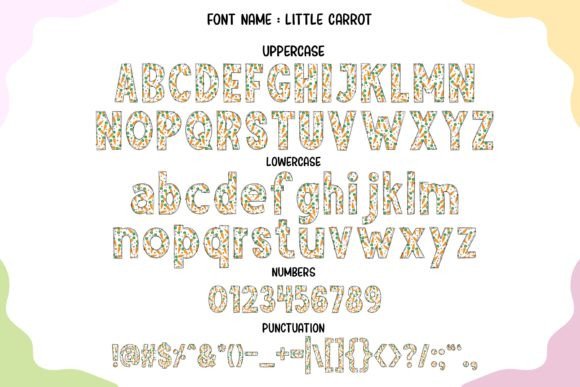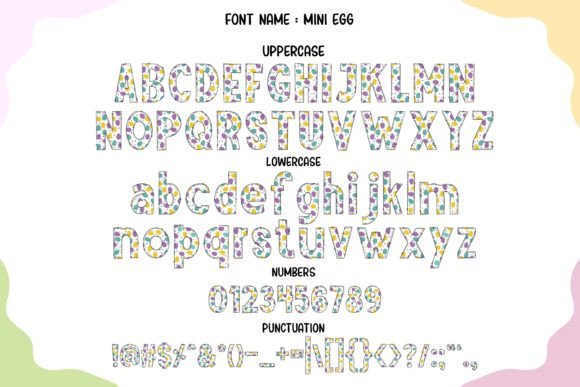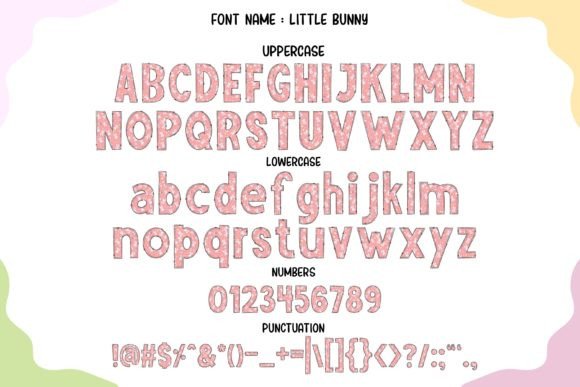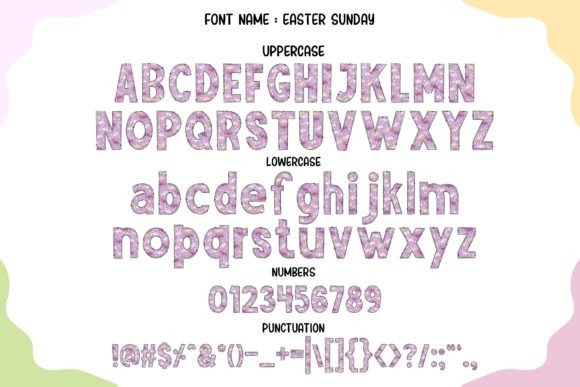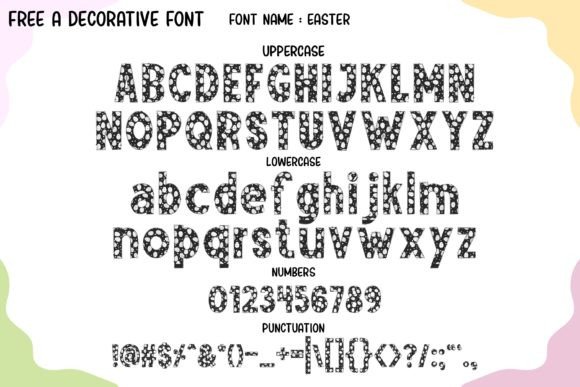
The Joy of Easter Font: Adding a Burst of Energy to Your Designs
I’ll never forget the time I was working on a last-minute Easter-themed project for a client, and I just couldn’t find the perfect font to bring it all together. The design needed something vibrant, fun, and playful, but everything I tried seemed dull or overused. That’s when I stumbled upon the Easter Font, and it was love at first sight! ✨ With its bright colors and unique style, it instantly elevated my design and made it stand out.
An Honest Review of Easter Font
- ✅ Vibrant colors that add a burst of energy to any design
- ✨ Unique and playful style that’s perfect for Easter-themed projects
- ✅ Ideal for headlines, logos, and social media graphics
While I adore the Easter Font, there are a few things to keep in mind: 🤔
One of the best things about the Easter Font is its OpenType features, glyphs, and stylistic alternates. These features allow you to customize your design and make it more unique. Here are a few tips for exploring these features:
The Designer Inspiration Behind Easter Font
The Easter Font was designed by a talented artist who wanted to create a unique and playful font for Easter-themed designs. Inspired by the bright colors and whimsical feel of Easter, the designer crafted a font that’s both fun and functional. With its bold colors and quirky style, the Easter Font is sure to bring a smile to anyone’s face.